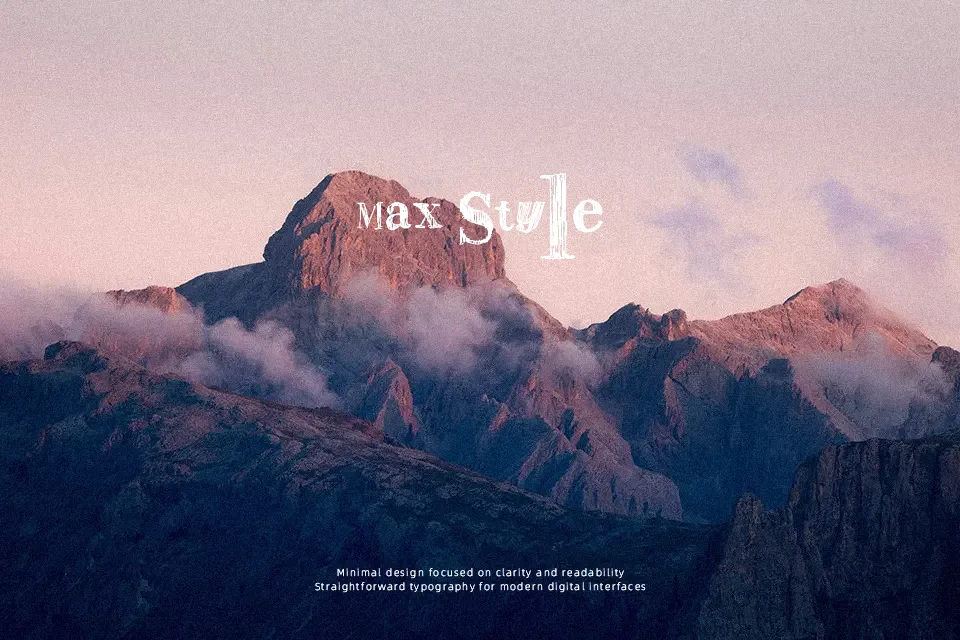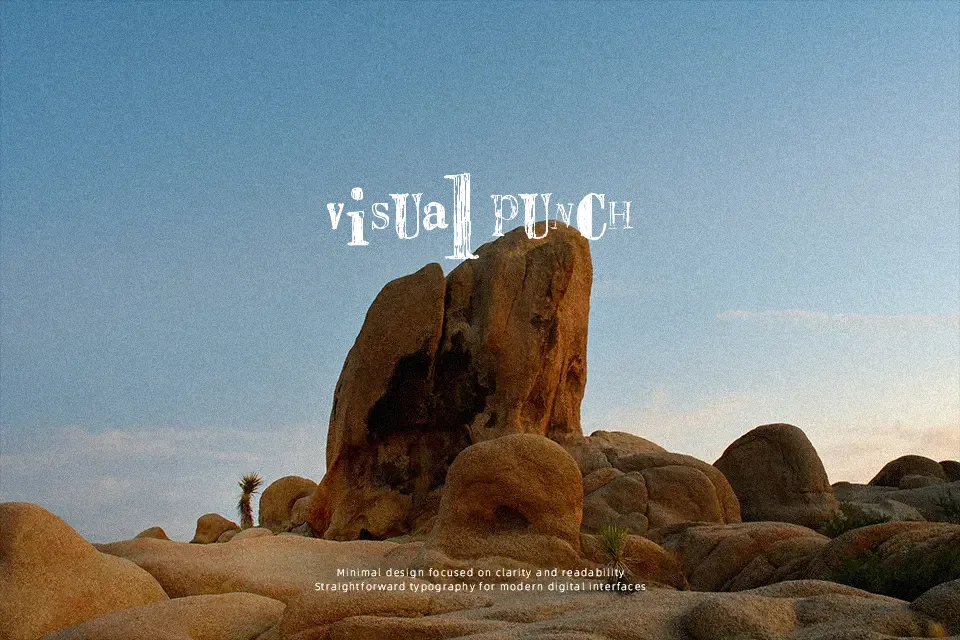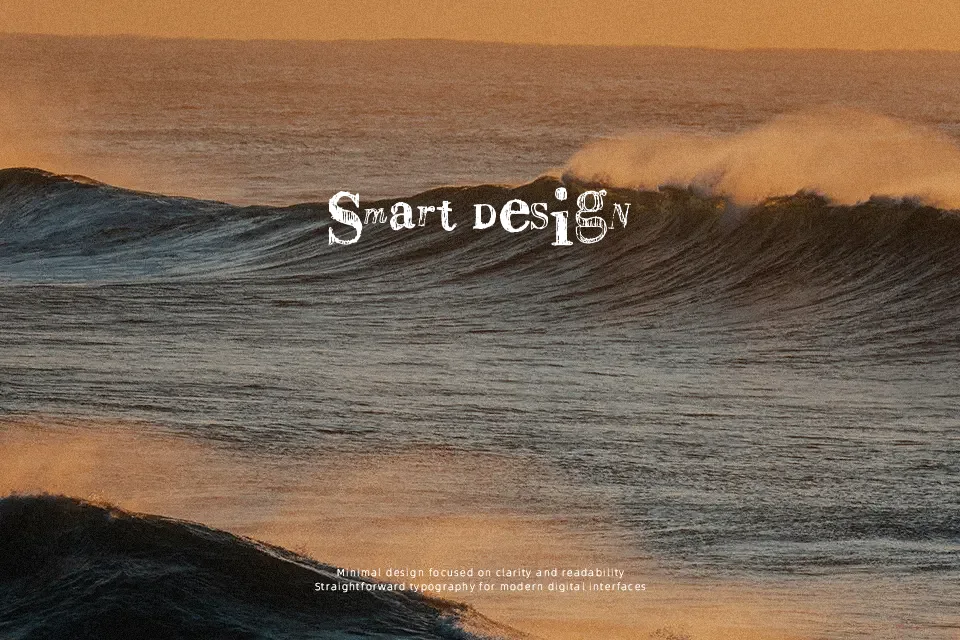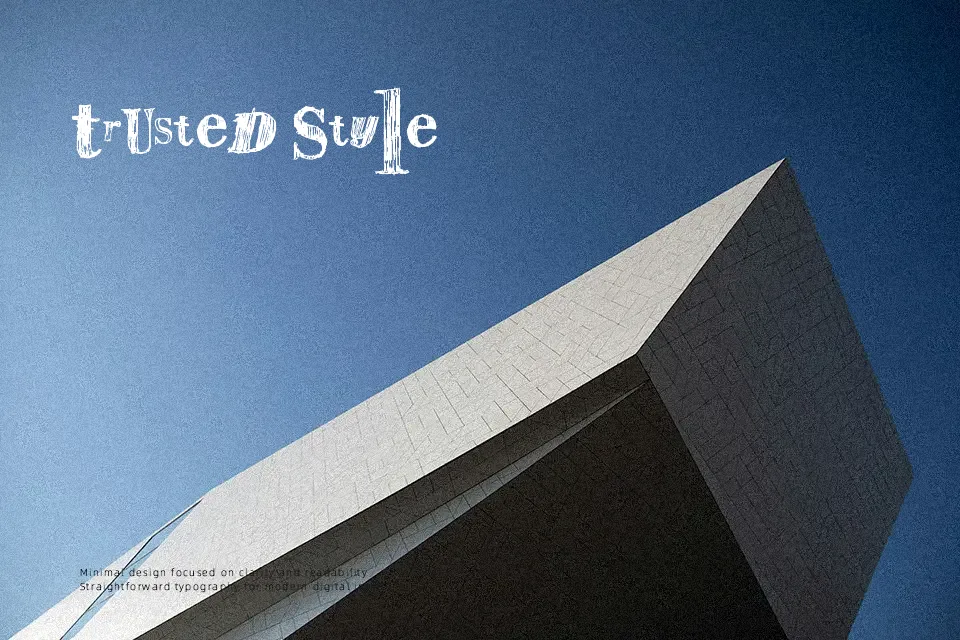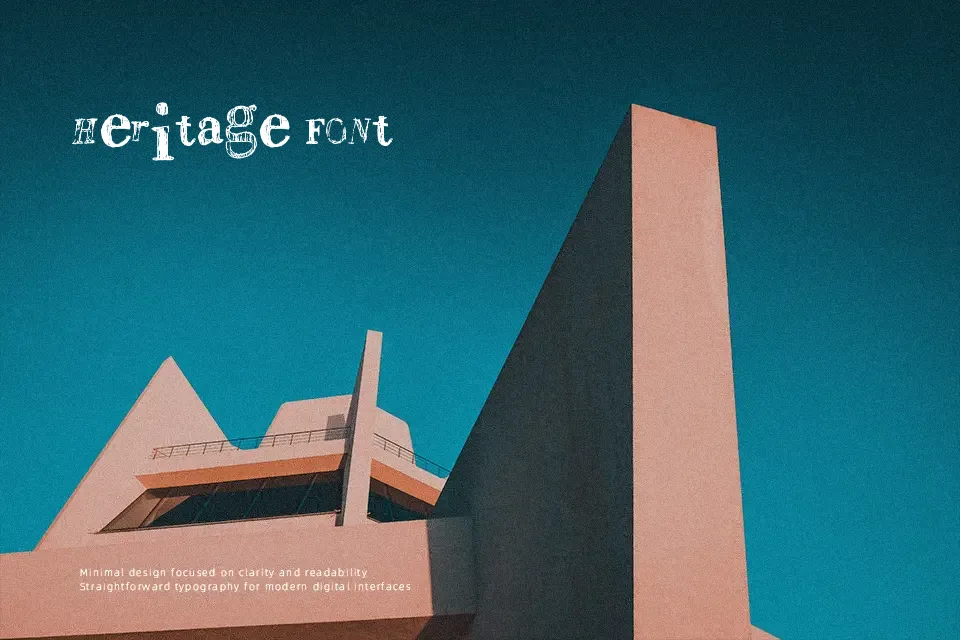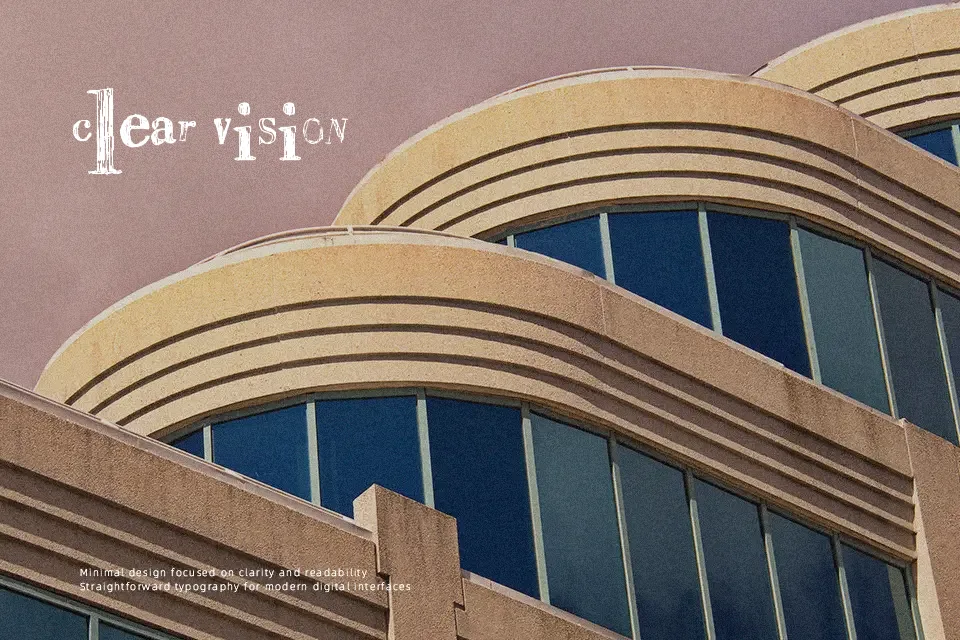
Sail Away Font
This typeface performs best when displayed at larger sizes, allowing the distinctive textures of Sail Away Font to stand out immediately. The irregular strokes and handcrafted letterforms give the design an organic, distressed aesthetic that establishes a strong visual presence. Because of the uneven contours and heavy texture, the letters maintain a strong rhythm in short headlines but become increasingly difficult to read in dense paragraphs. The varying character widths provide a raw, energetic feel that works well for artistic branding, independent music packaging, and bold poster design. While the rough edges add significant character to display contexts, these decorative details reduce continuous reading comfort, making it less suitable for editorial layouts or small user interface elements.
Best For: grunge posters, vintage packaging, apparel graphics, album covers
Not Ideal For: long paragraph text, corporate reports, small interface labels
Perfect for branding, music, and packaging, with a artistic and decorative style.